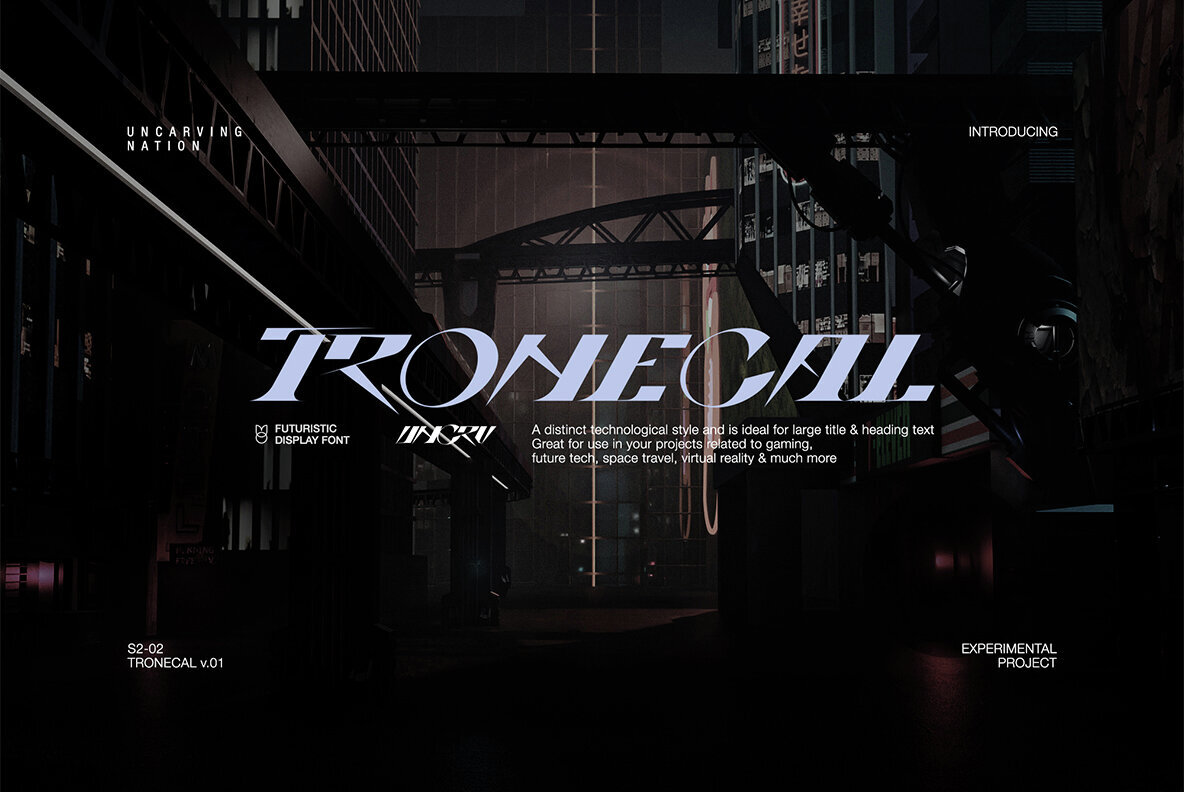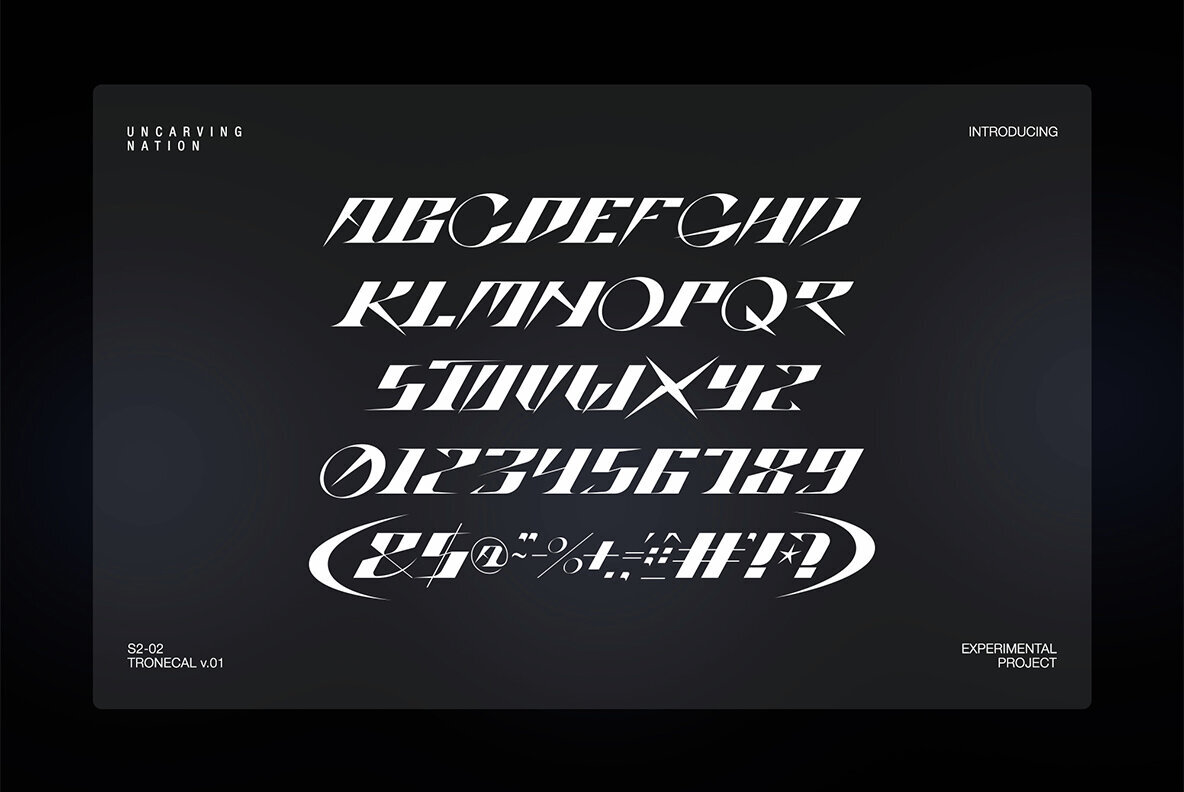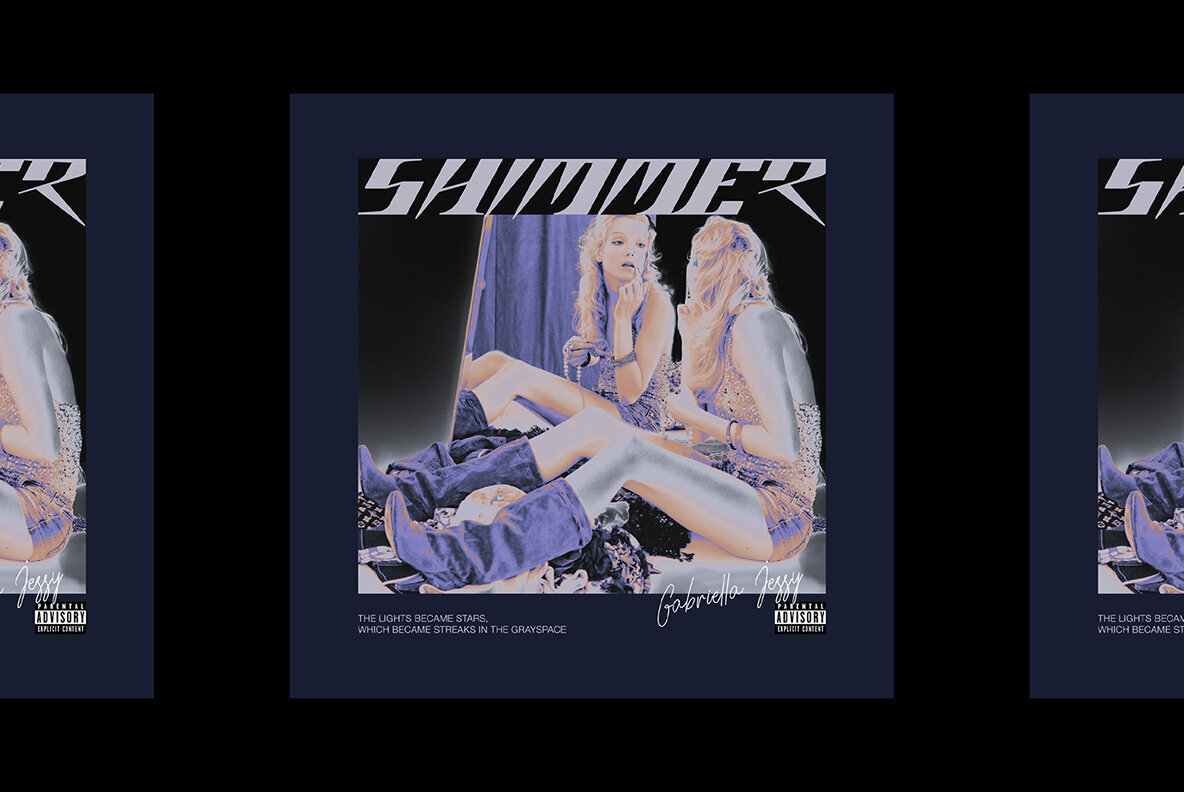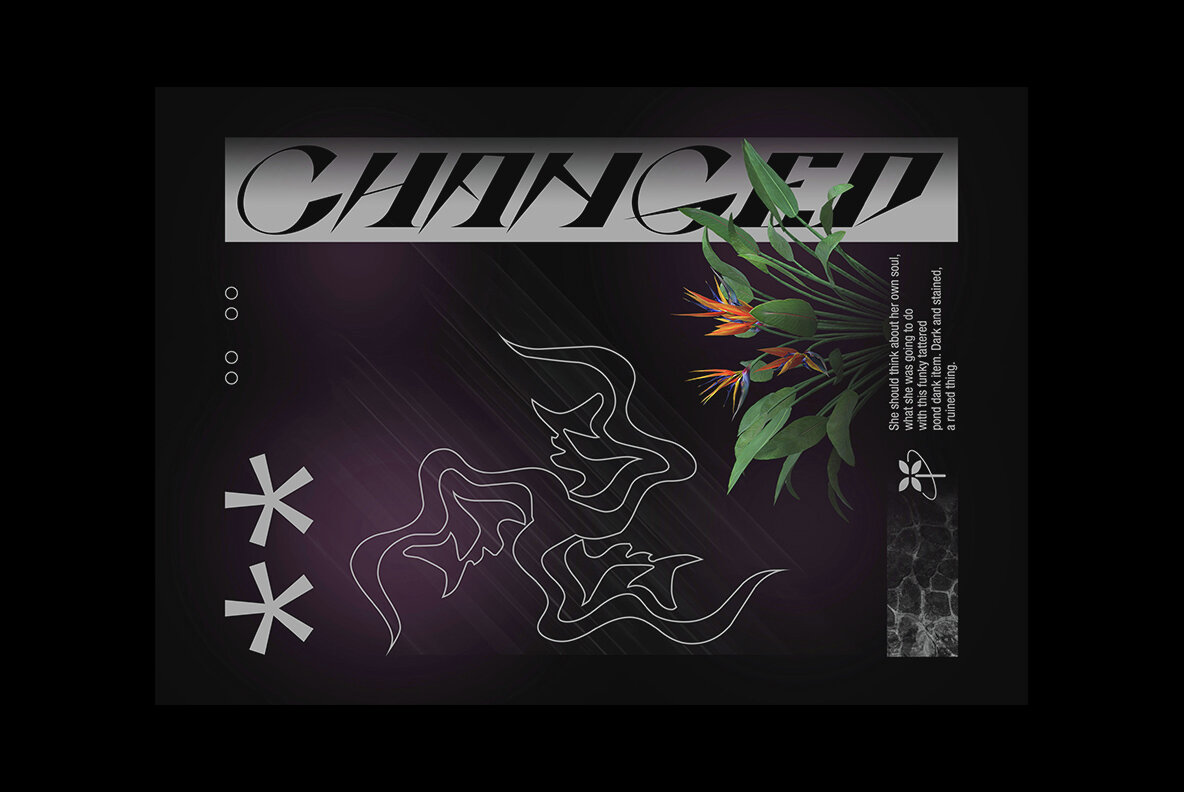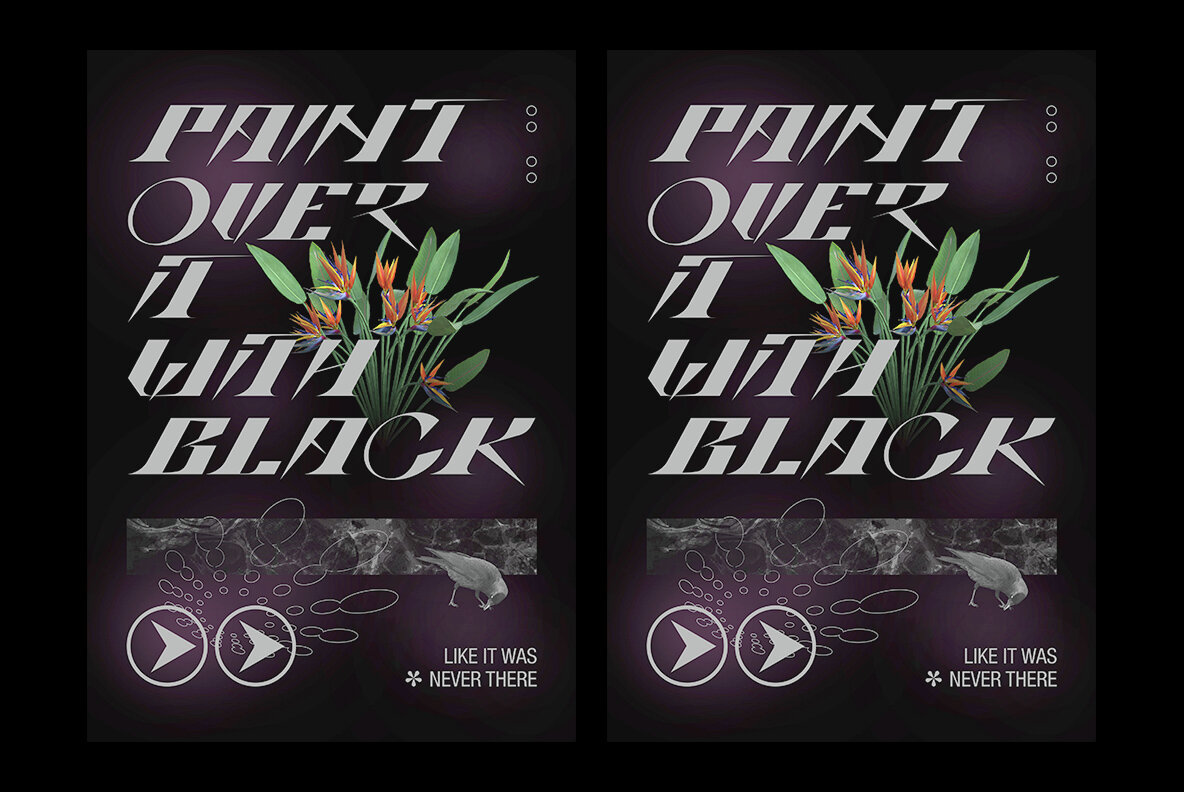
Tronecal Font
TRONECAL
Inspired by modern themes, Tronecal brings a futuristic touch while maintaining simplicity through unique geometric shapes. This font is an excellent choice for projects that delve into the realms of gaming, future tech, space travel, and virtual reality.Tronecal: A Modern Font With Futuristic Flair
Uncarving Nation is a type foundry based in Jepara, Indonesia, Its aim is to explore typography based on elements that the founder, as a graphic designer, finds useful and enjoyable.Over the last two years, he has discovered many new aspects of typography from various genres, which he combines to create fr...